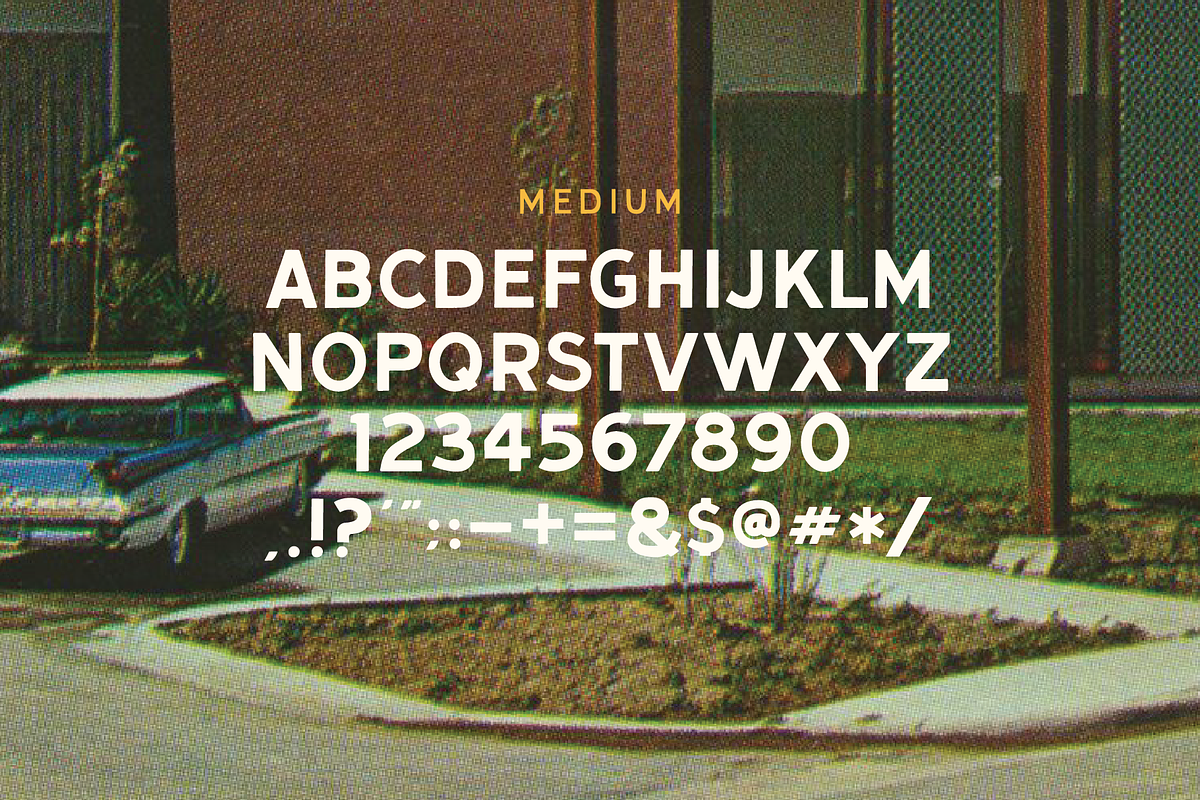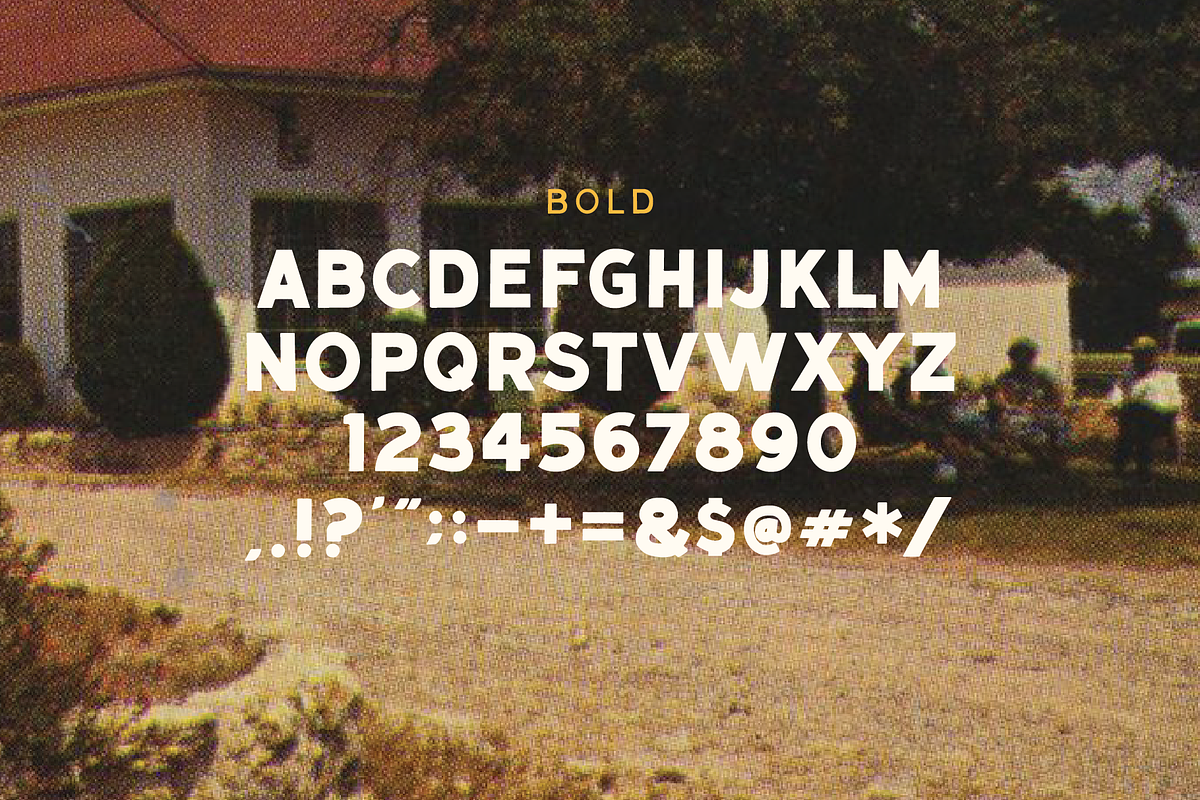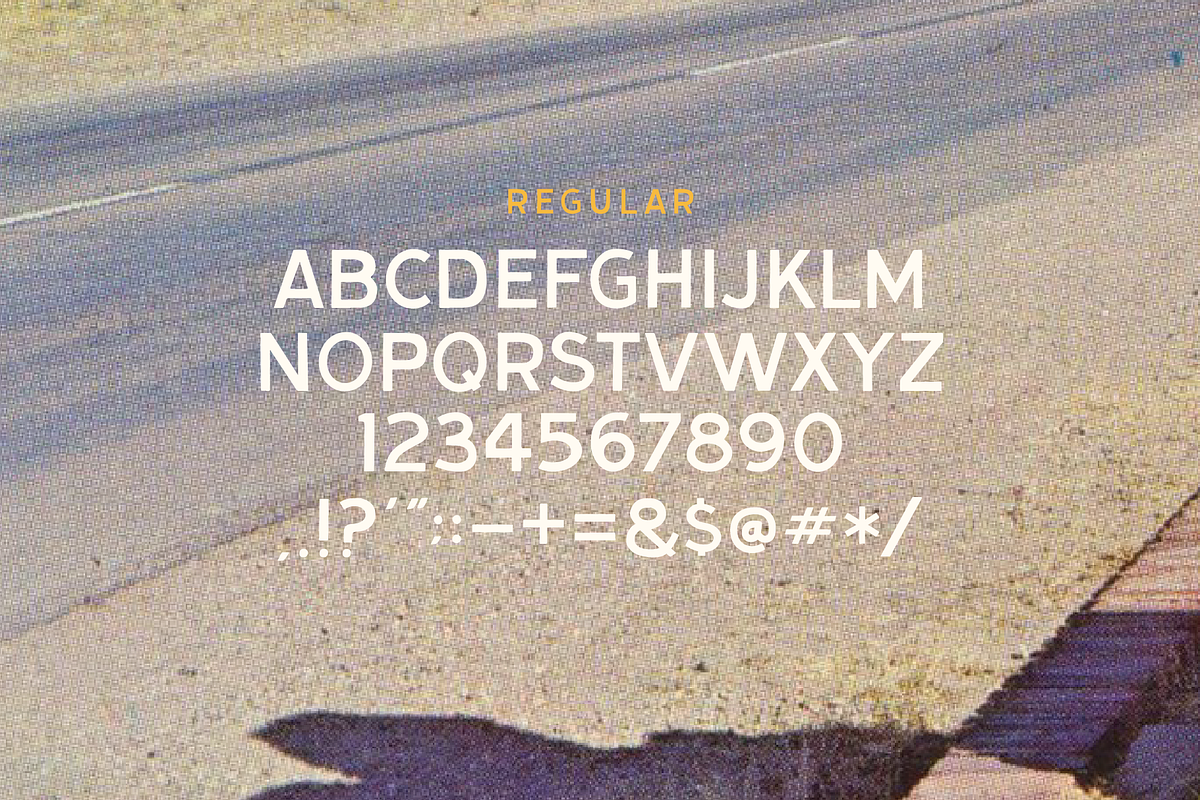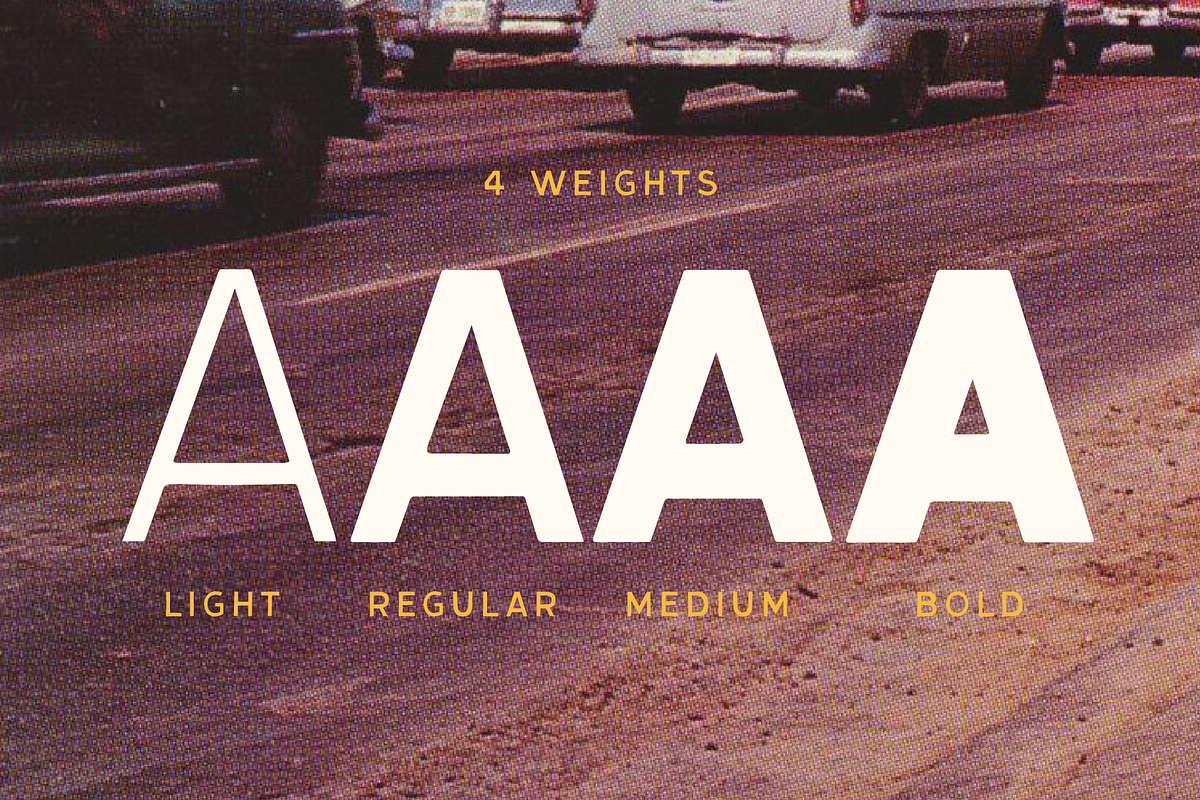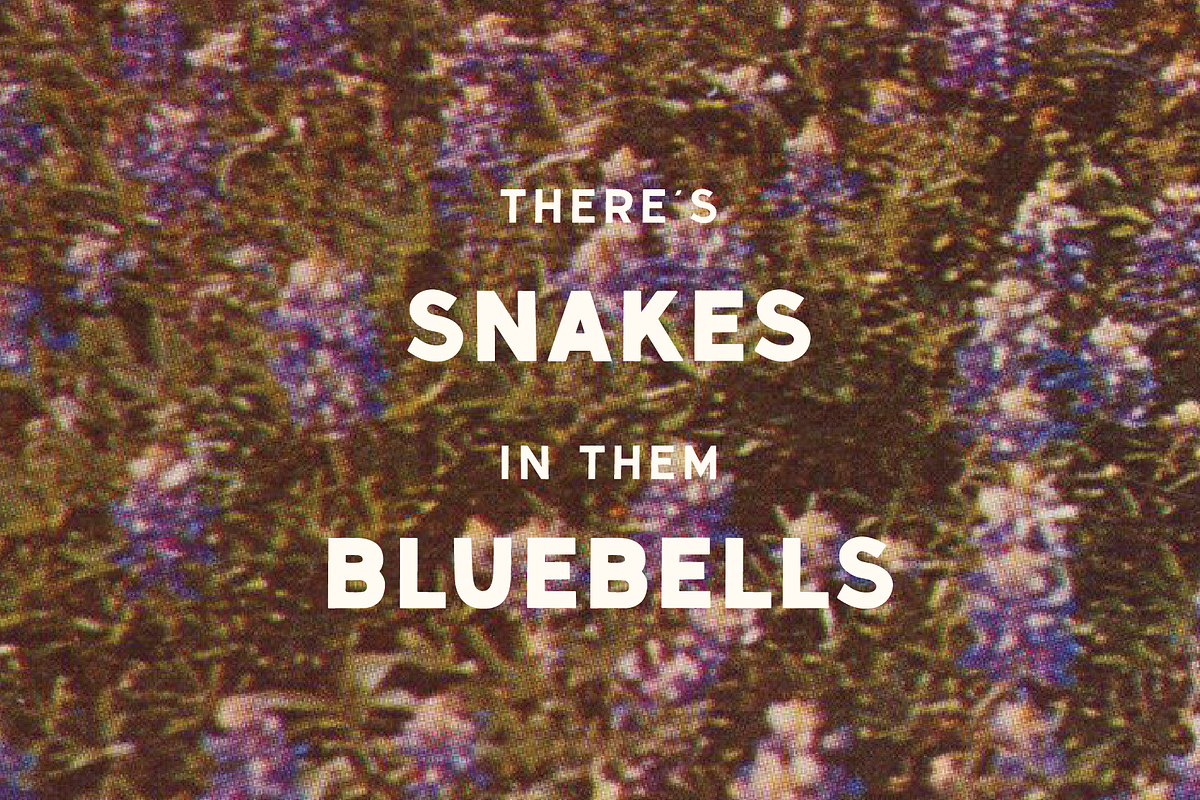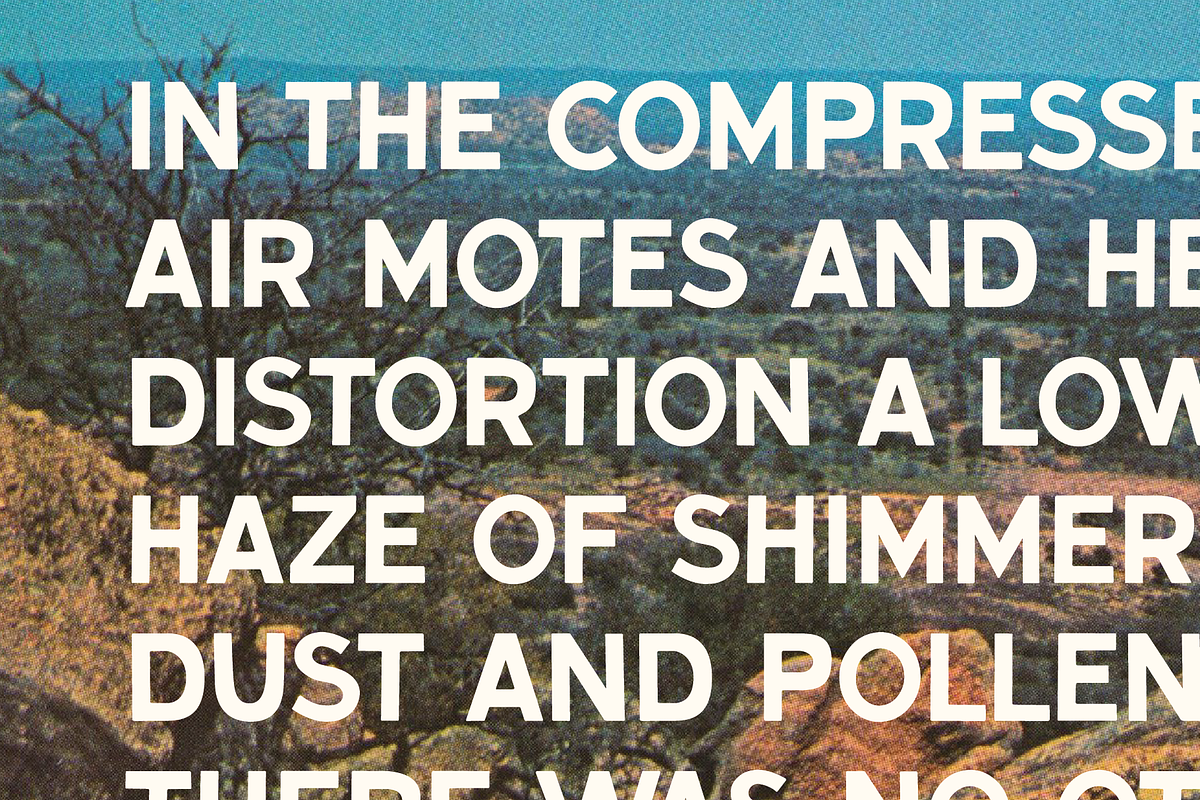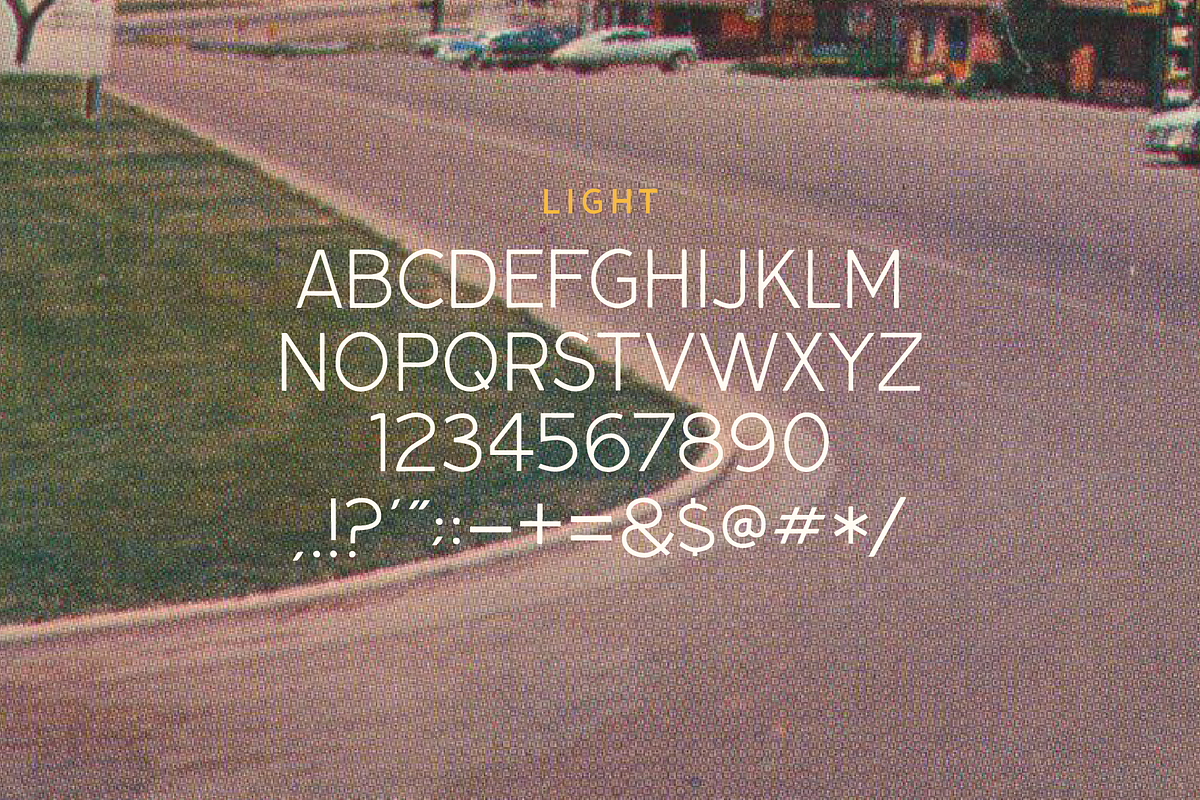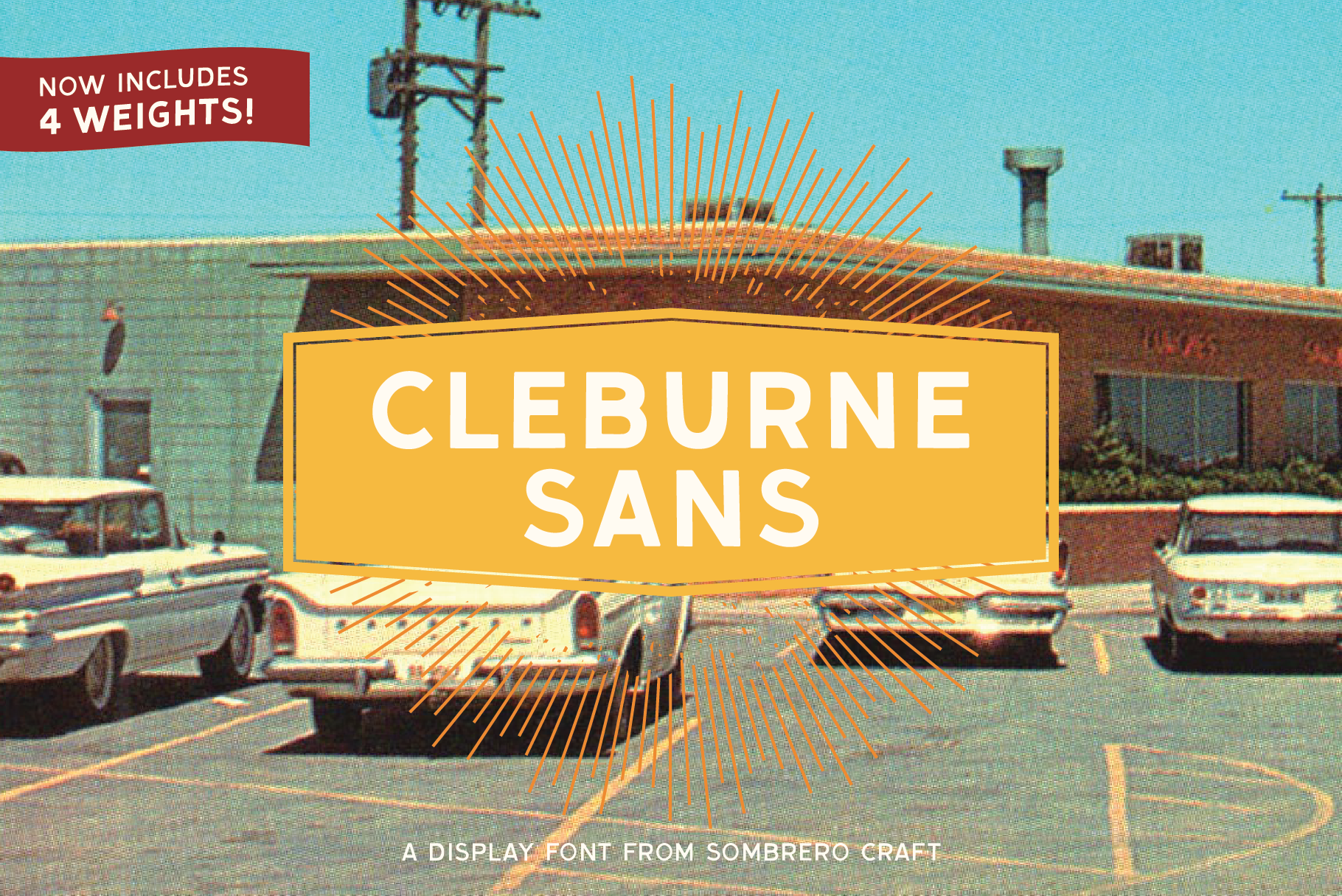
Cleburne Sans - Display Font
Cleburne Sans is a straightforward, all-caps display font with a sans-serif style. It's inspired by the lettering you'd find on old signs, like those done in the style of Egyptian Sans. This font is hand-drawn and then digitized, giving it a casual, handmade feel instead of a too-perfect, crisp look. Includes 4 different weights from light to bold.